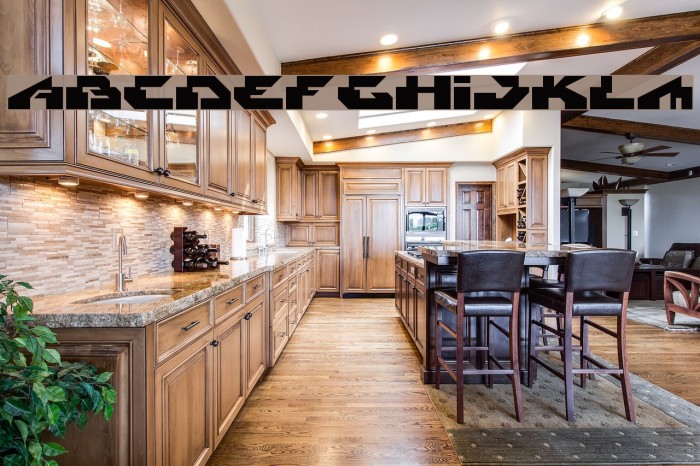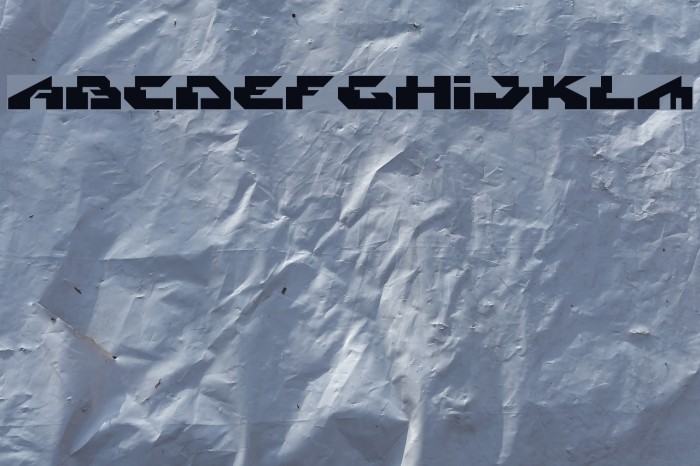
Radikal Font
This font features a bold, geometric design with sharp angles and a futuristic aesthetic. The characters are constructed with thick lines and distinct, angular cuts, giving it a strong, impactful presence. The uppercase and lowercase letters maintain a consistent style, while the numbers and special characters complement the overall design. Its unique structure makes it stand out, ideal for projects that require a modern and edgy look.
| Proposed Projects | Ideal for branding, posters, video game titles, and any project needing a modern, edgy aesthetic. |